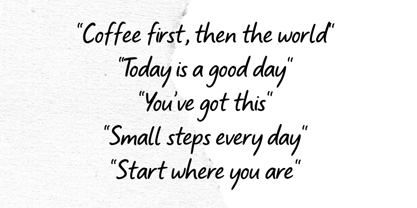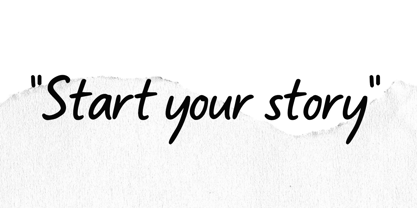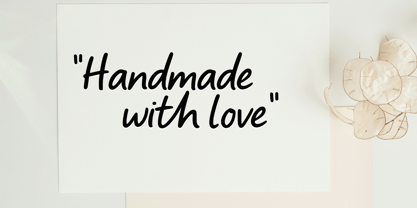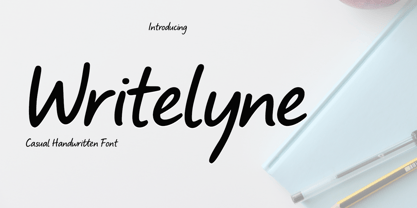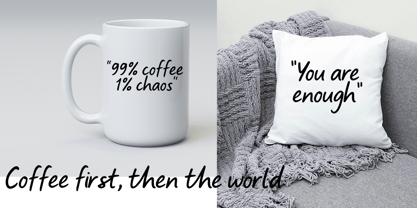
Writelyne
by Cocodesign
The Writelyne Font Family was designed by Muhammad Zaini and published by Cocodesign. Writelyne contains 1 styles.
Writelyne is a clean and casual handwritten font designed for versatile use across digital and print media. Featuring smooth strokes and a natural flow, it provides a relaxed yet legible look suitable for various design purposes.
Designers: Muhammad Zaini
Publisher: Cocodesign
Foundry: Cocodesign
Design Owner: Cocodesign
About Cocodesign